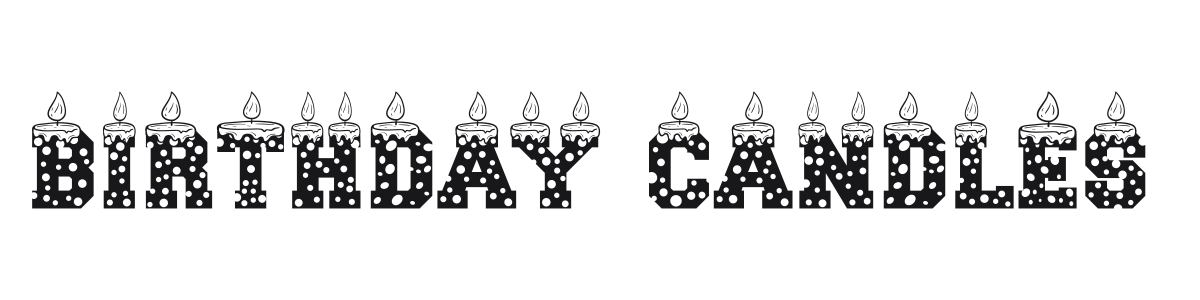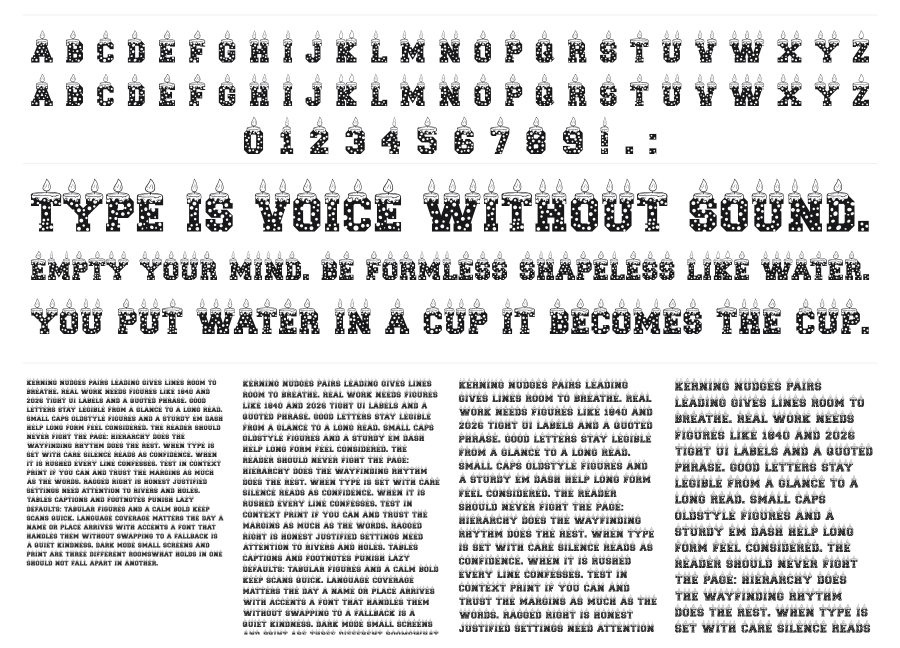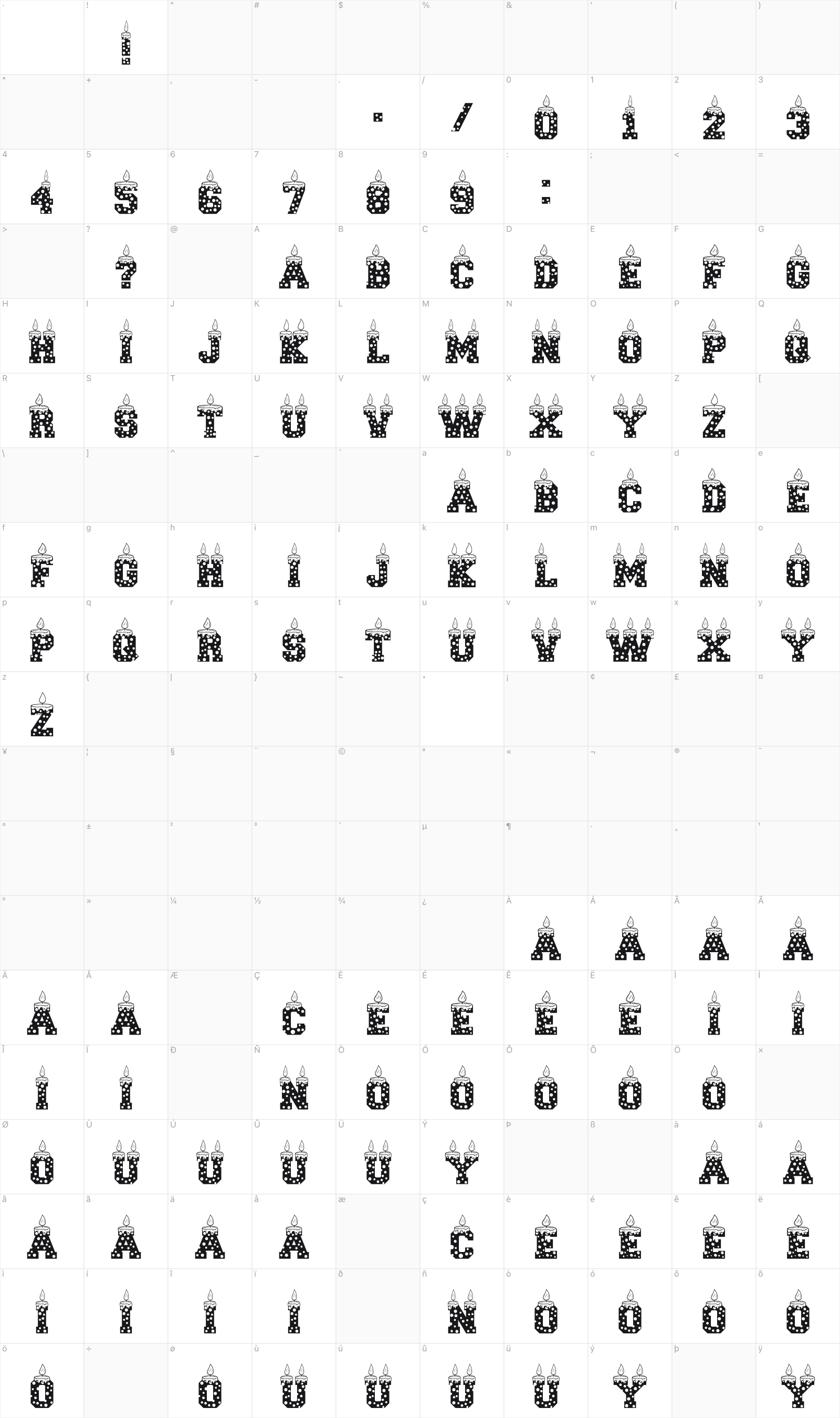
Birthday Candles
Birthday Candles is a novelty display font where every character is designed to look like a lit birthday candle, filled with polka dots and topped with a flame. The chunky, bold construction reads clearly at large sizes while the illustrated detail makes it instantly recognizable as a celebration typeface. It brings an unambiguous party energy to invitations, packaging, and event graphics.